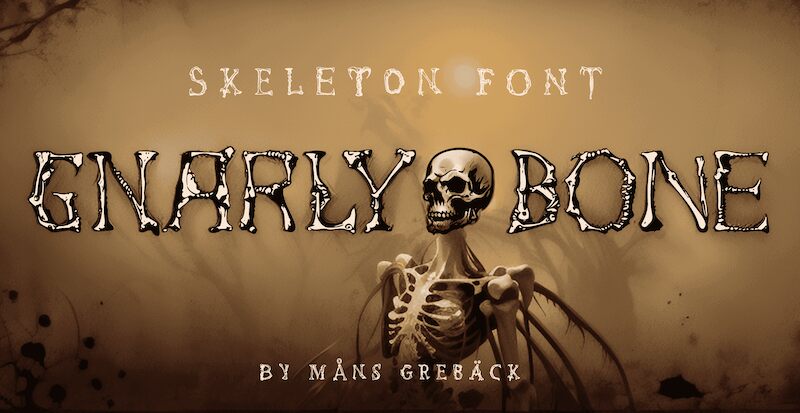
Gnarly Bone, designed by Mans Greback, is a spine-chilling holiday font that embodies the true essence of Halloween. With its semi-light weight and eerie style, this font is perfect for creating an atmosphere of terror and suspense. Its skeletal fragments and bone parts come together to form an alphabet that will send shivers down your spine.
Whether you're designing posters for haunted houses, crafting invitations for costume parties, or creating banners for horror movie marathons, Gnarly Bone will add a frightful touch to your projects. This font is a must-have for anyone looking to unleash their inner ghoul and bring the macabre to life. Let Gnarly Bone be your go-to choice for all things spooky and supernatural!
Use the currency symbol to make a skull.
Example: haLlweEn
Use multiple to make different skulls.
Example: Darkness